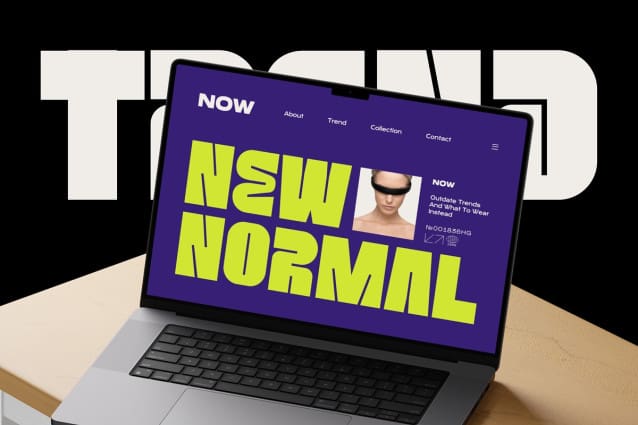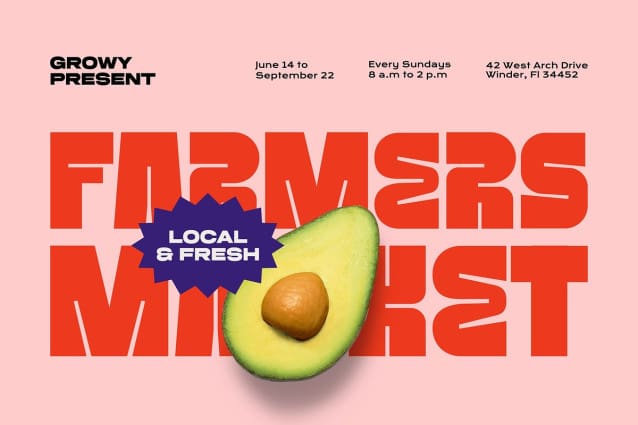
Morse Cyeon Font
Morse Cyeon Font is a unique bold display font that has smooth curves and a visual style a can embodies charm and elegance in every lettering, making your work look stunning and attractive.
Morse Cyeon Font A versatile font that works in both uppercase and lowercase sizes, suitable for a wide variety of projects such as a display font for headings, logo fonts, invitations, branding, book covers, magazine layouts, card, product packaging, product mockup, mugs, posters, labels, editorials, art deco, and any type of advertising purpose.